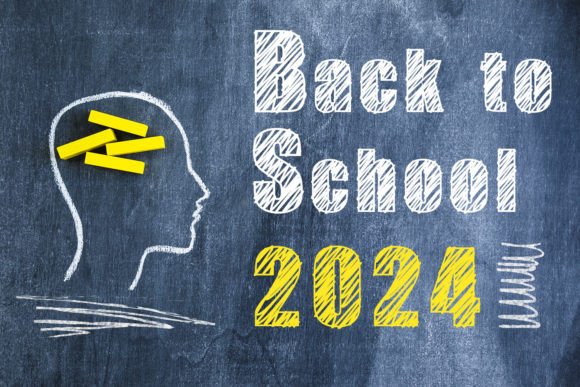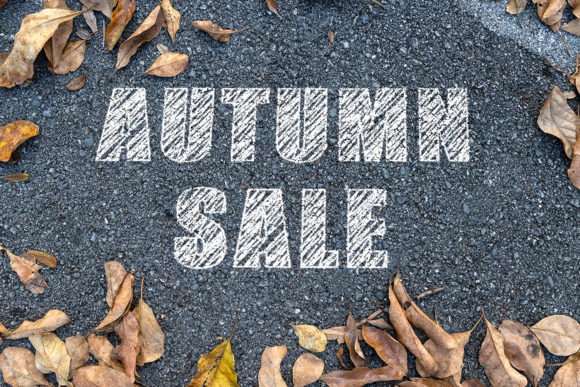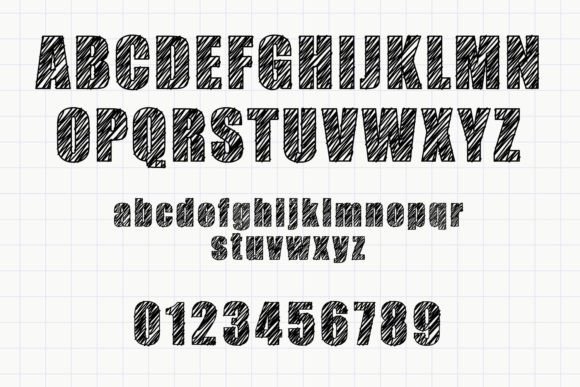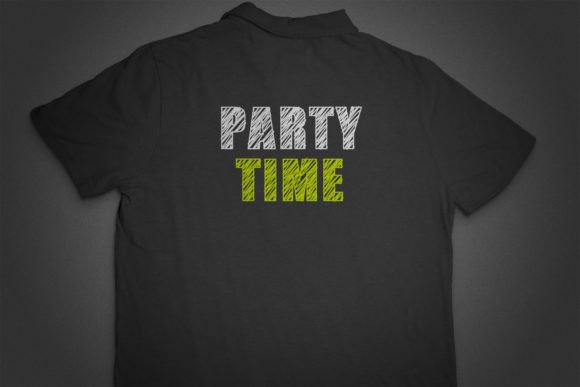
Introduction to Pencil Scribble Font
Pencil Scribble is a fun display font that has a scribble effect.
Whimsical and a bit quirky, this font will brighten up each of your designs Add it confidently to your projects, and you will love the results.
Key Features of Pencil Scribble Font
Why Choose Pencil Scribble Font?